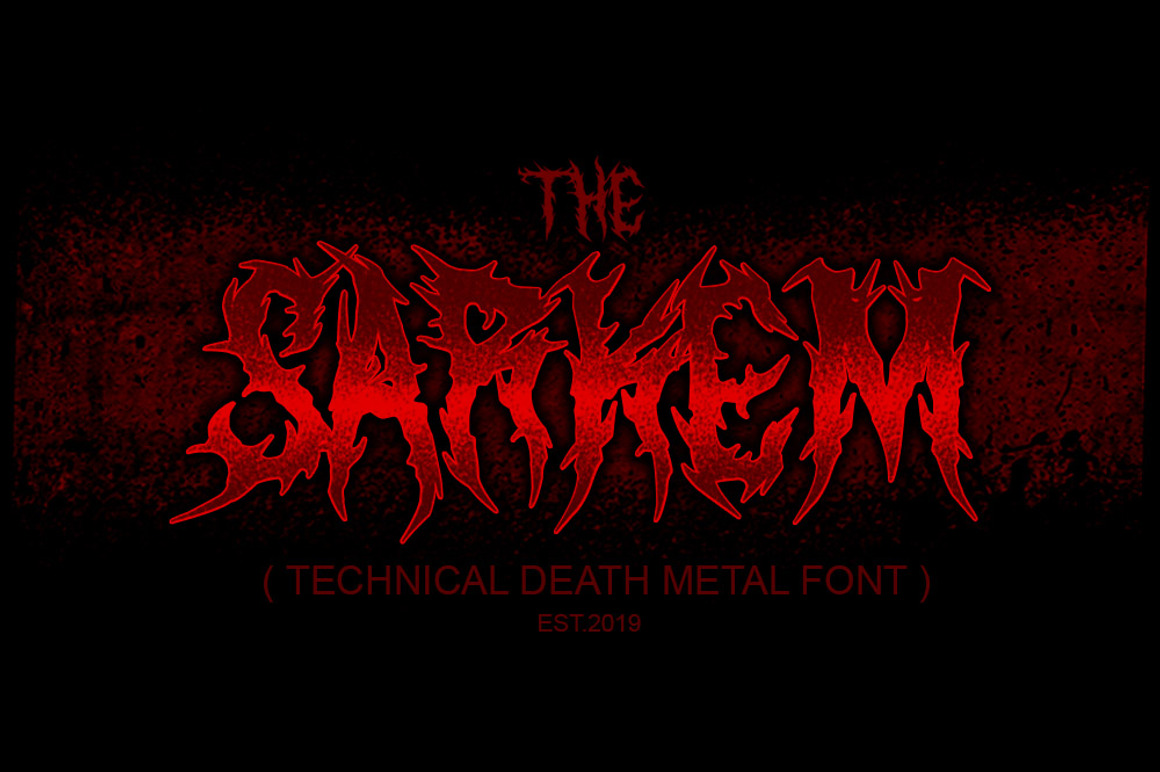
SARKEM / TECHNICAL DEATH METAL FONT
SARKEM TECHNICAL DEATH METAL FONT is perfect for extreme metal band logos, brutal music merchandise, underground concert promotions, horror movie titles, dark gaming interfaces, aggressive poster design, death metal album covers, and intense advertising campaigns. This devastating typeface works exceptionally well in both digital applications and print media where sonic brutality and technical precision are paramount design elements.
What makes SARKEM TECHNICAL DEATH METAL FONT so exciting is its relentless interpretation of extreme metal aesthetics through razor-sharp letterforms that channel the technical complexity and brutal intensity of death metal's most sophisticated subgenre. The font features aggressive characters with surgical precision, technical angles, and mechanical details that evoke the mathematical brutality and instrumental virtuosity of technical death metal. Its extreme personality and underground heritage make it ideal for brands seeking to communicate uncompromising intensity, technical excellence, and the raw power of extreme music while maintaining legibility in the most brutal contexts.
The SARKEM TECHNICAL DEATH METAL FONT family includes multiple weight variations from heavy to ultra-brutal, along with distressed alternates and technical ornamental elements. Each style maintains the typeface's extreme character while offering comprehensive character sets including brutal numerals, metal-inspired punctuation marks, and special symbols designed to enhance underground communications and extreme branding efforts across various brutal contexts.
This extraordinary typeface represents the perfect fusion of technical precision and sonic brutality for extreme music and entertainment industries. Whether you're developing death metal band identities, creating underground music promotions, or designing horror entertainment materials, SARKEM TECHNICAL DEATH METAL FONT Free Download delivers the devastating intensity and versatility needed to dominate the most extreme audiences. The font's technical death metal heritage makes it particularly effective for extreme metal bands, underground record labels, horror entertainment, and businesses celebrating the most brutal forms of artistic expression.
The meticulously engineered brutal construction and optimized extreme performance in SARKEM TECHNICAL DEATH METAL FONT ensure maximum sonic impact while maintaining clear communication across all underground applications. Its devastating presence makes it ideal for band logos, extreme branding, and brutal communications where its full technical death metal character can create unforgettable impressions and establish immediate association with uncompromising intensity and technical brutality.